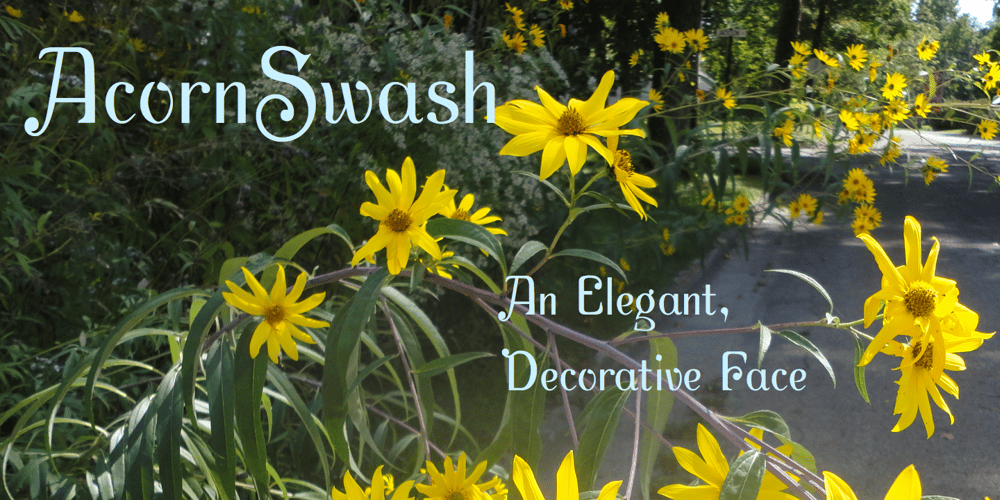
AcornSwash Font Family was designed by Robert Schenk and published by Ingrimayne Type. AcornSwash contains 2 styles and family package options. Sans-serif with ornate, swashy capitals, AcornSwash is an elegant decorative face. The differences between the two versions of the font are in letters I, Z, a, e, f g, j, k, and o.